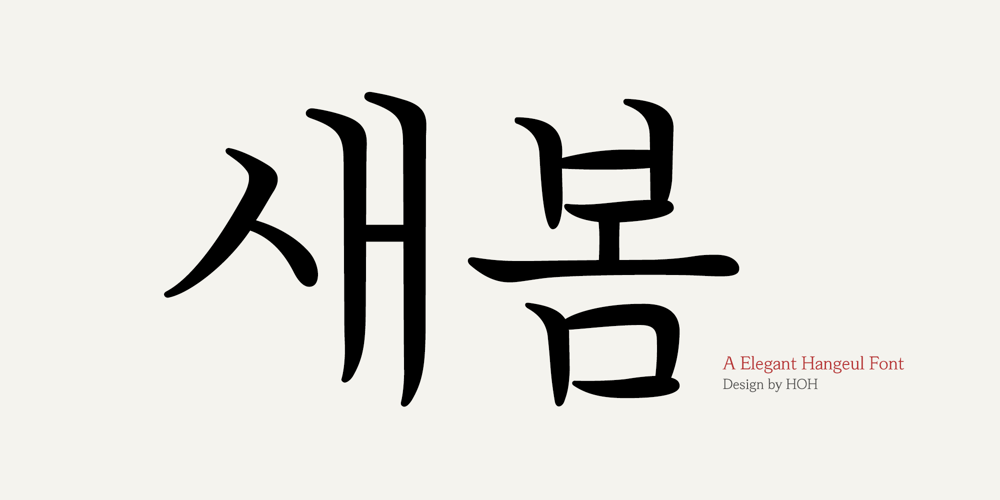
Sae Bom
Sae Bom font
Sae Bom Font Family was designed by Saebom Lee and published by HOHOHtype. Sae Bom contains 1 styles and family package options. ‘Saebom’ is a serif Korean font with the soft curves of a Korean calligraphy brush. The traditional form of Hangul is expressed with modern curves. If you are looking for a Korean-style font with a soft feel, this font will be a good choice for you. Latin character sets are also supported. Designed with applications in mind: Advertising & Packaging, Editorial & Publishing, Logo, Branding & Creative Industries, Posters & Social Media, Marketing, etc.